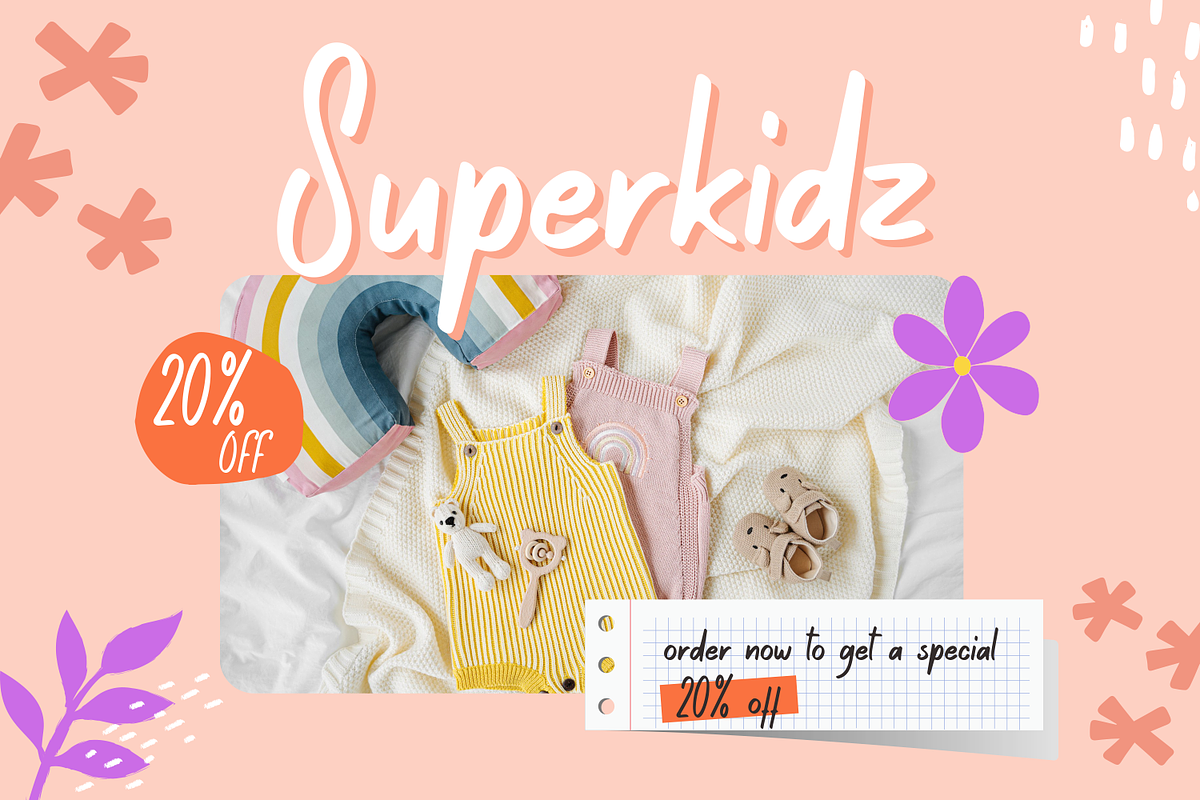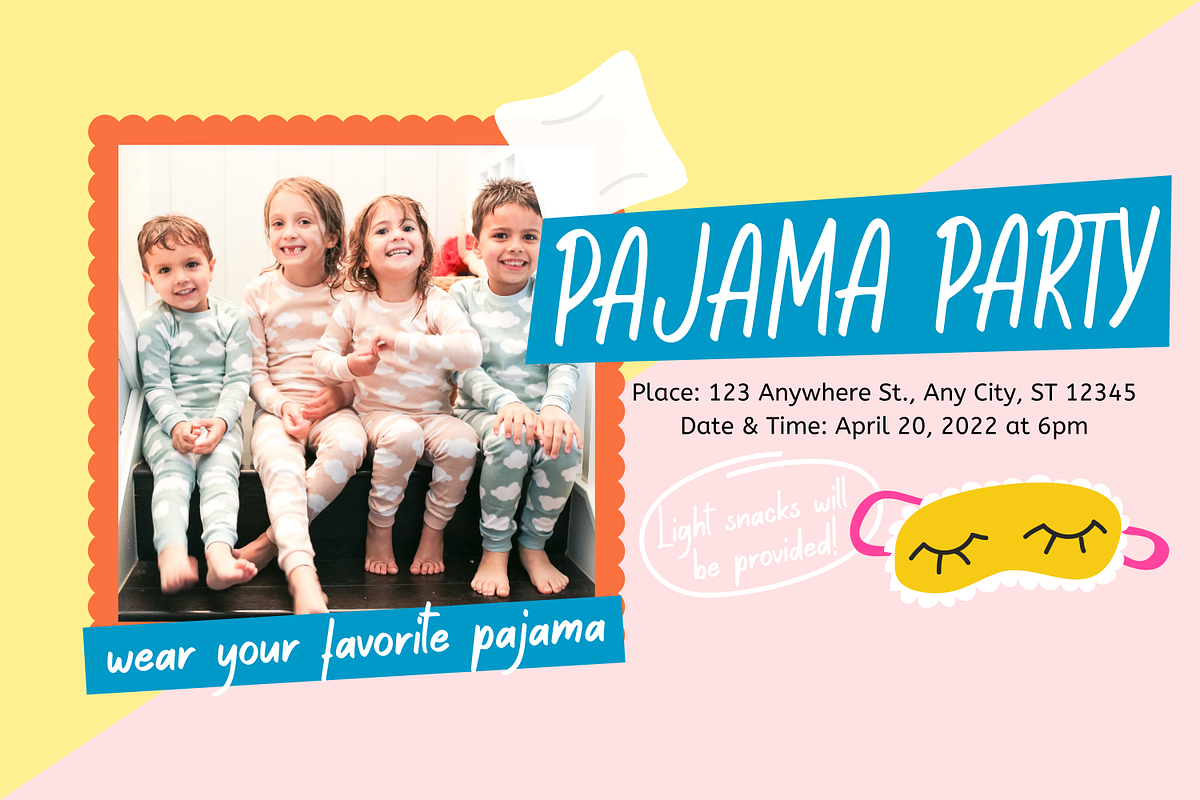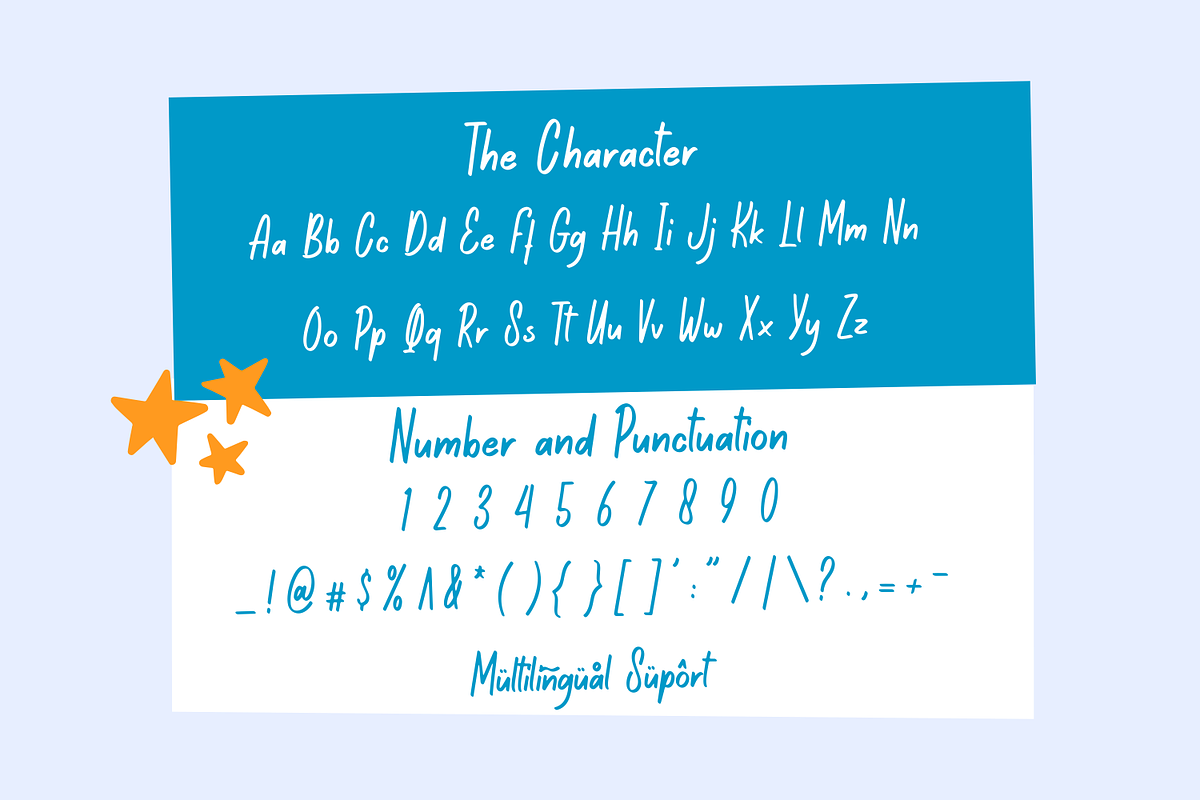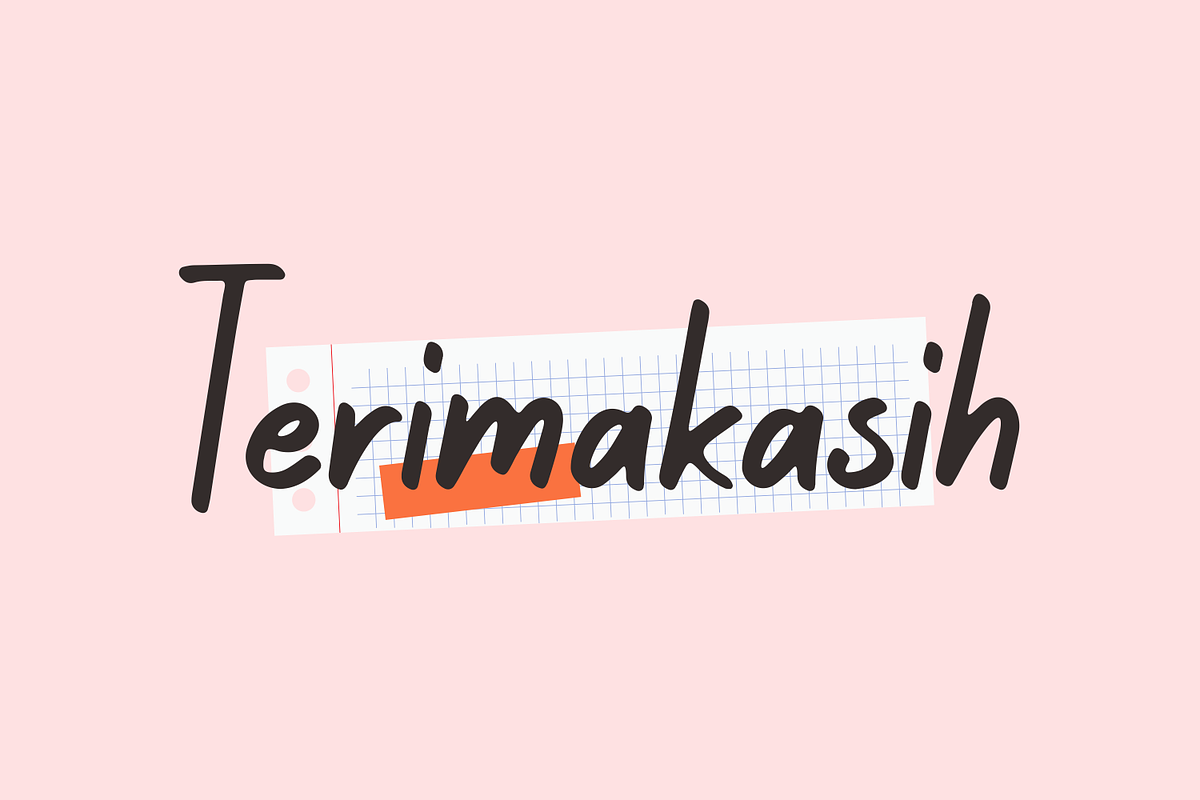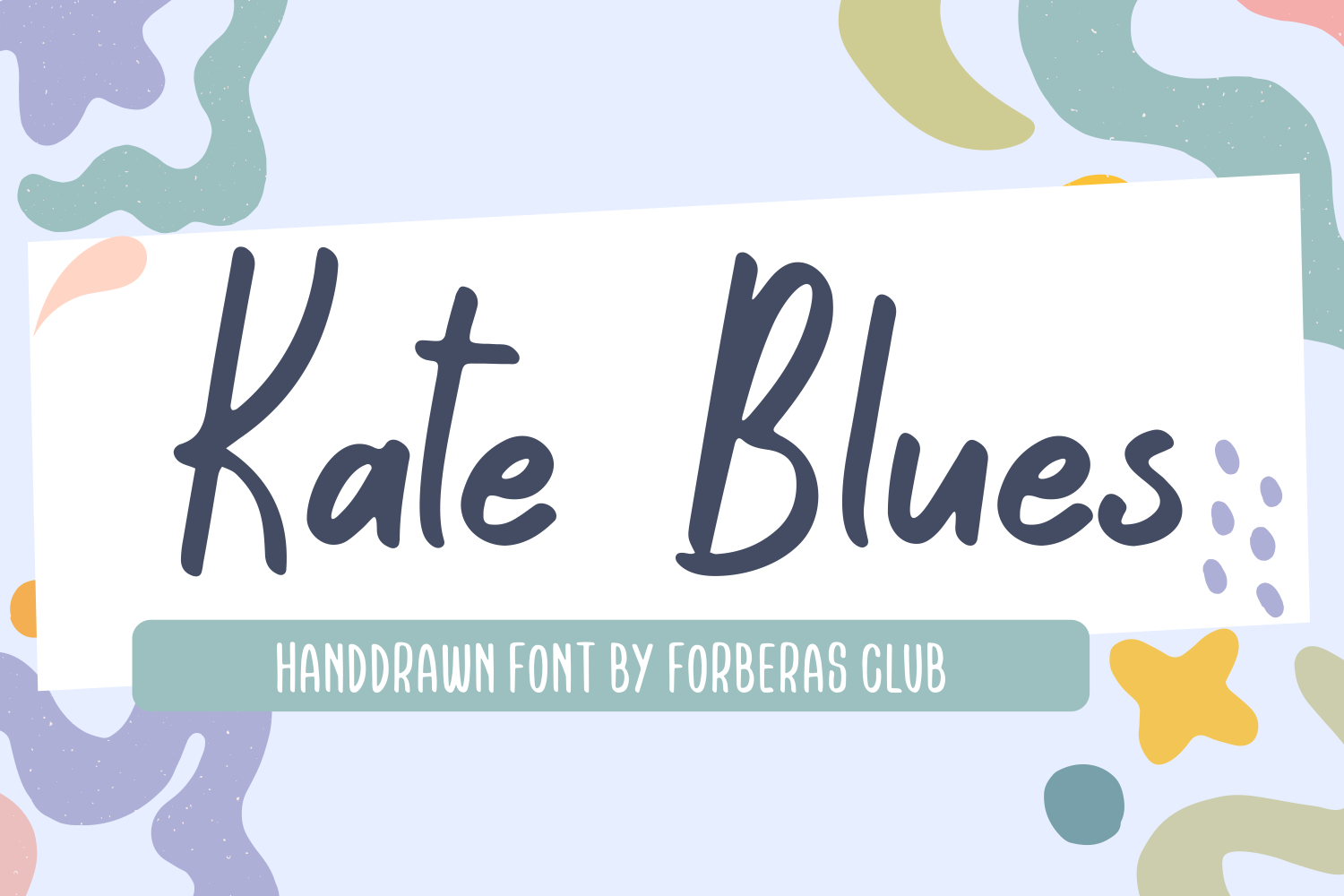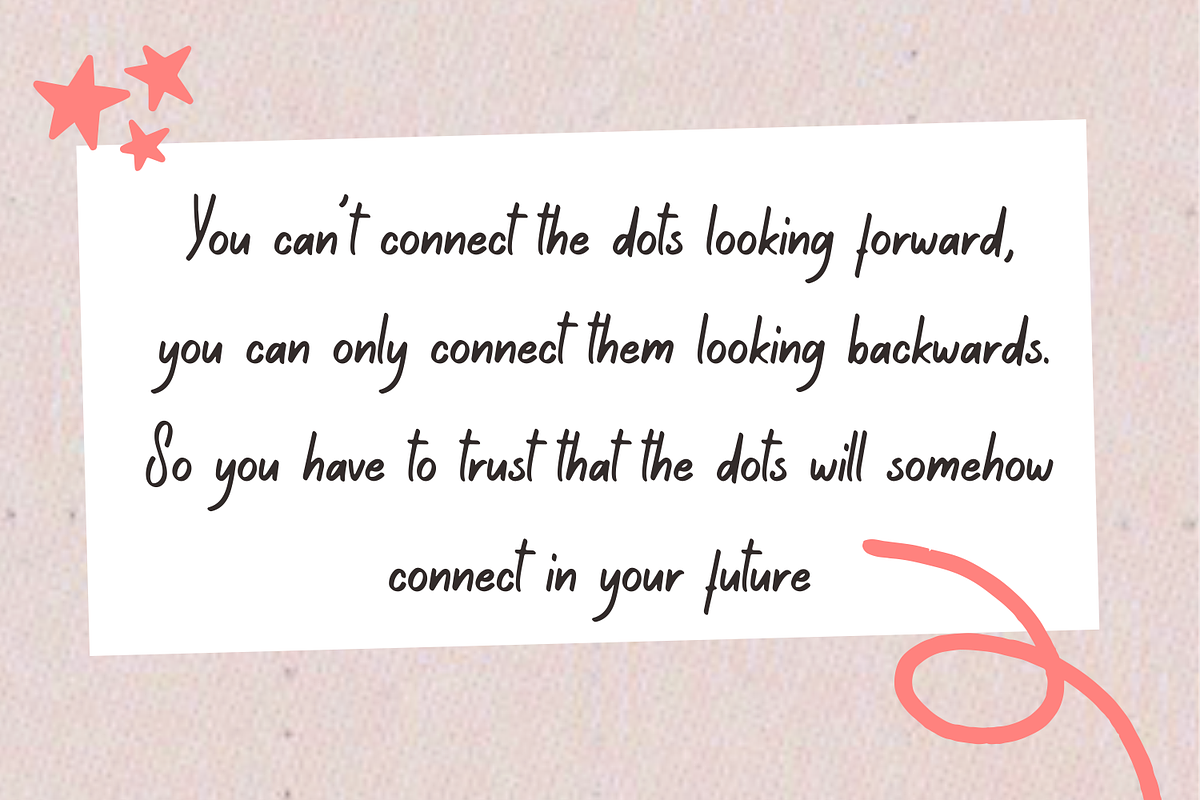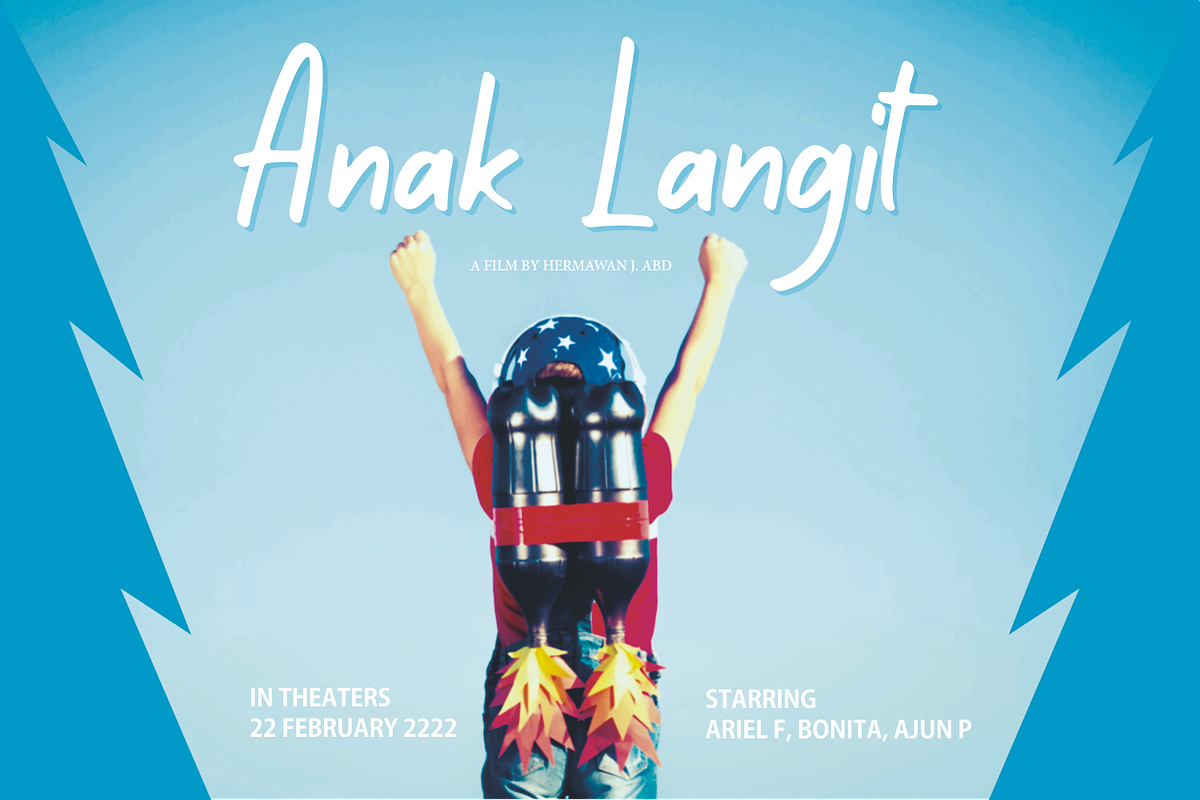
Kate Blues | Handwritten Font
Introducing Kate Blues by Forberas
Modern and beautiful handwritten script font! Great for wedding greeting cards, logos, branding materials, Invitation, business cards, quotes, posters, Cricut artwork and more!